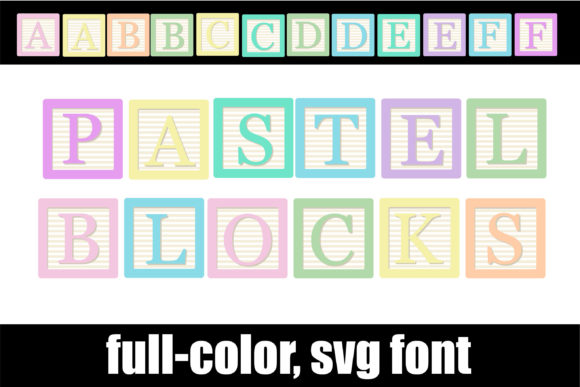
Are you looking for the best fonts for kids' shirts? Look no further than Pastel Blocks Font, a colorful font created by Illustration Ink that features pastel children's blocks. This font is perfect for any design that needs a touch of joy and playfulness, whether it's cartoon-related designs, children's games, quotes, titles, brand names, book covers, posters, or any other creative project.
One of the best things about Pastel Blocks Font is that it is perfect for kids' shirts. With its playful design, it will appeal to kids of all ages and will make your designs look both fun and stylish. Whether you are designing shirts for a school event, a sports team, or just for fun, Pastel Blocks Font is the perfect choice.
But don't just take our word for it - Pastel Blocks Font has received rave reviews from customers who have used it in their own designs. They love how easy it is to use and how it adds a touch of whimsy to their projects. With its eye-catching design and compatibility with a range of applications, Pastel Blocks Font is a must-have for anyone who wants to create fun and playful designs that stand out.
So why wait? Download Pastel Blocks Font today and start creating designs that will make kids smile and adults feel nostalgic for their childhood. With its bright colors and playful design, this font is sure to become one of your favorites.